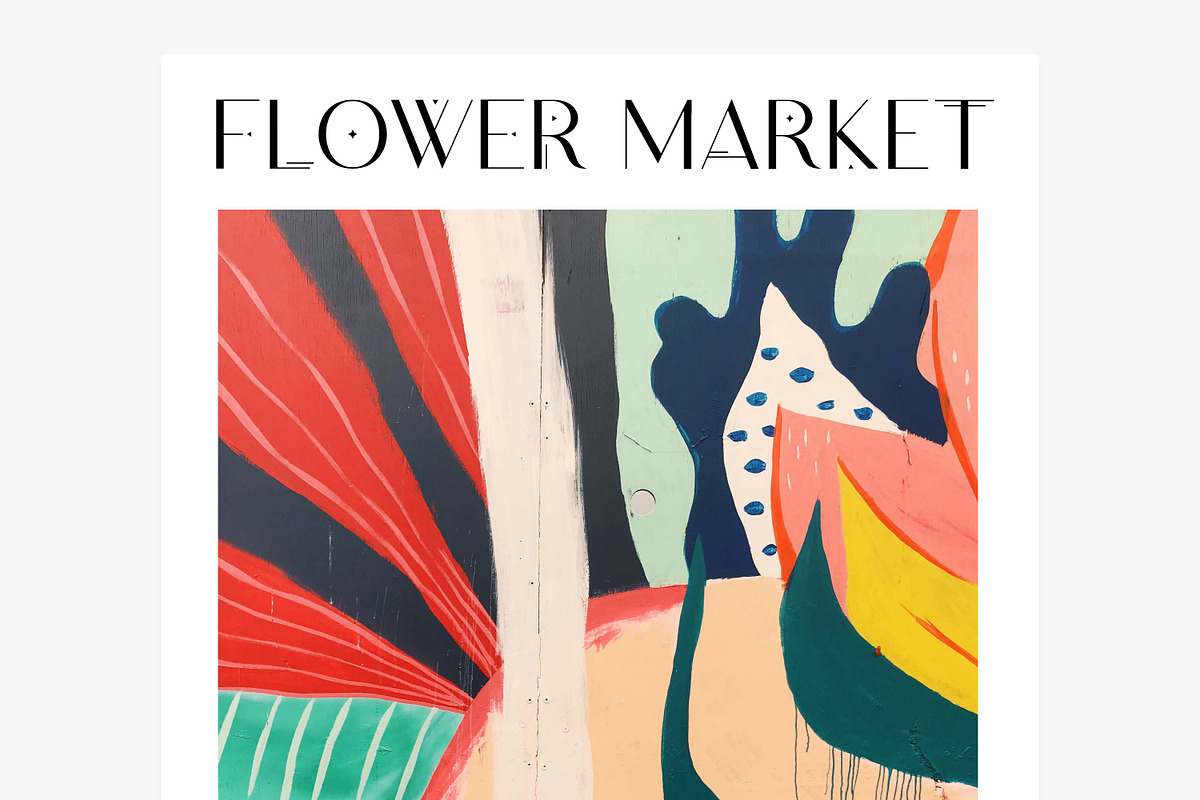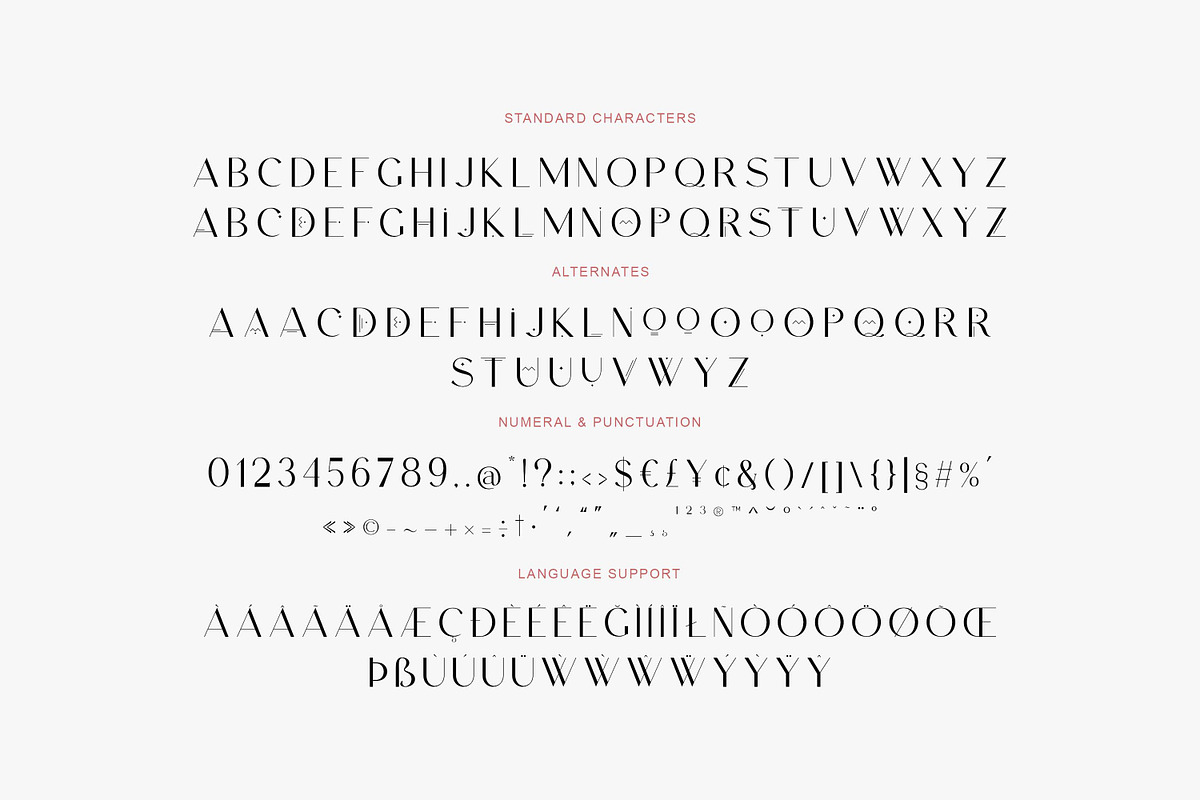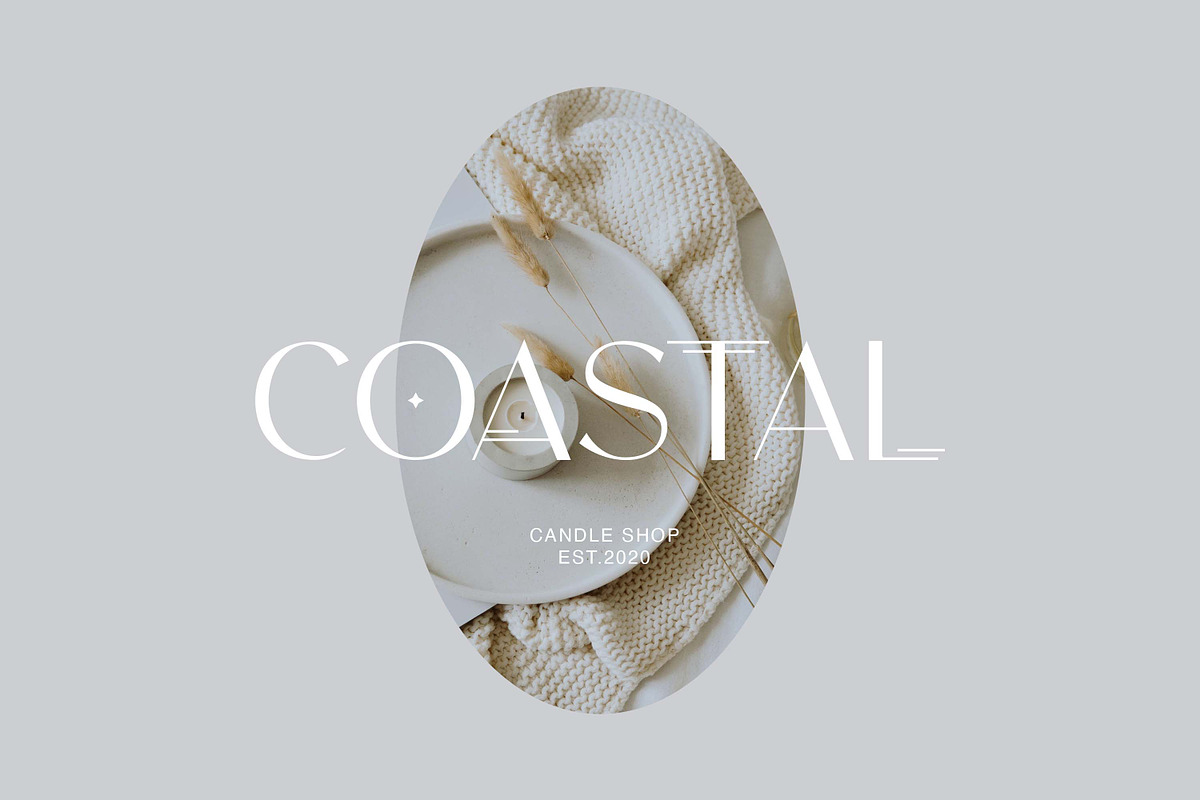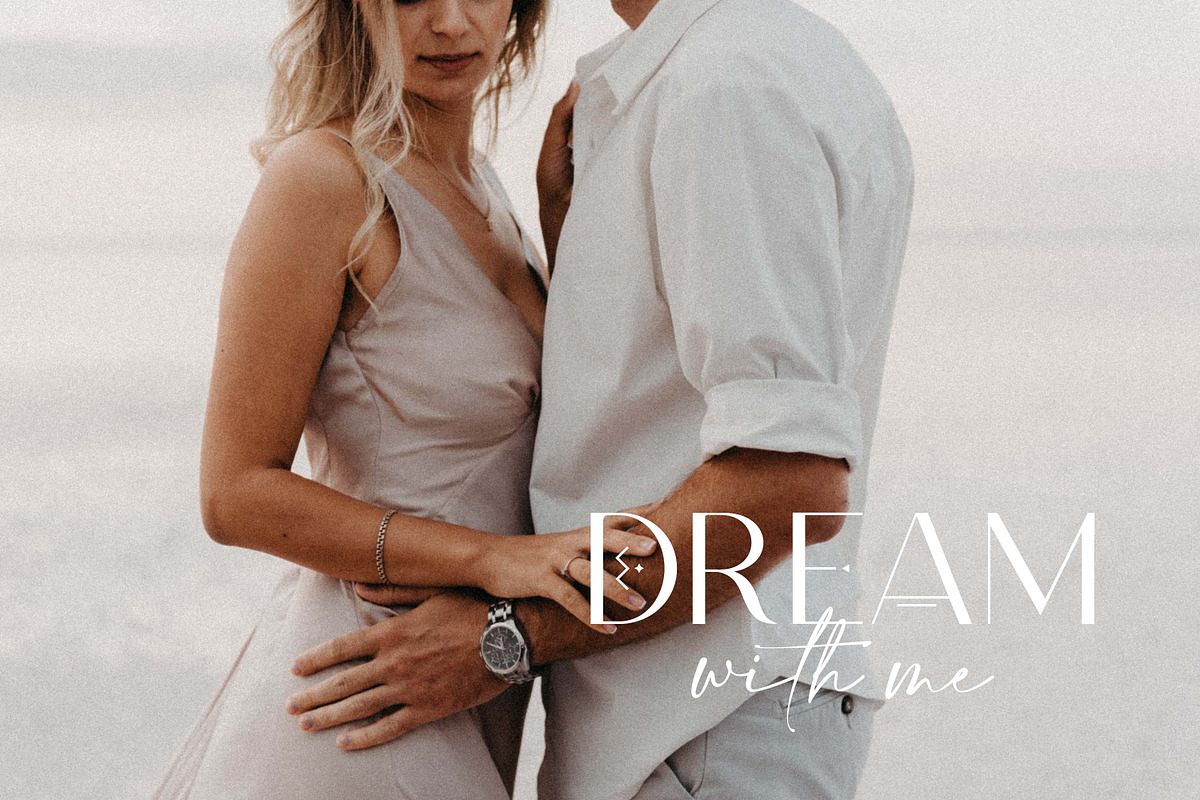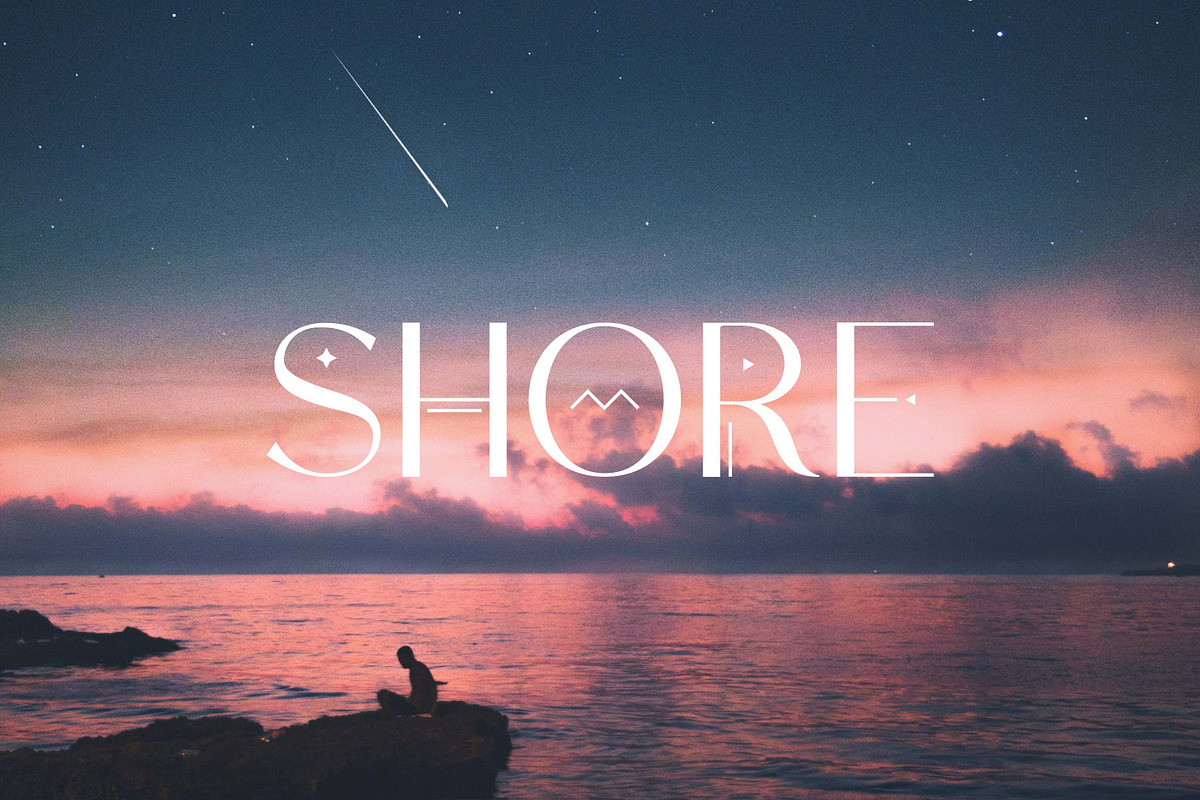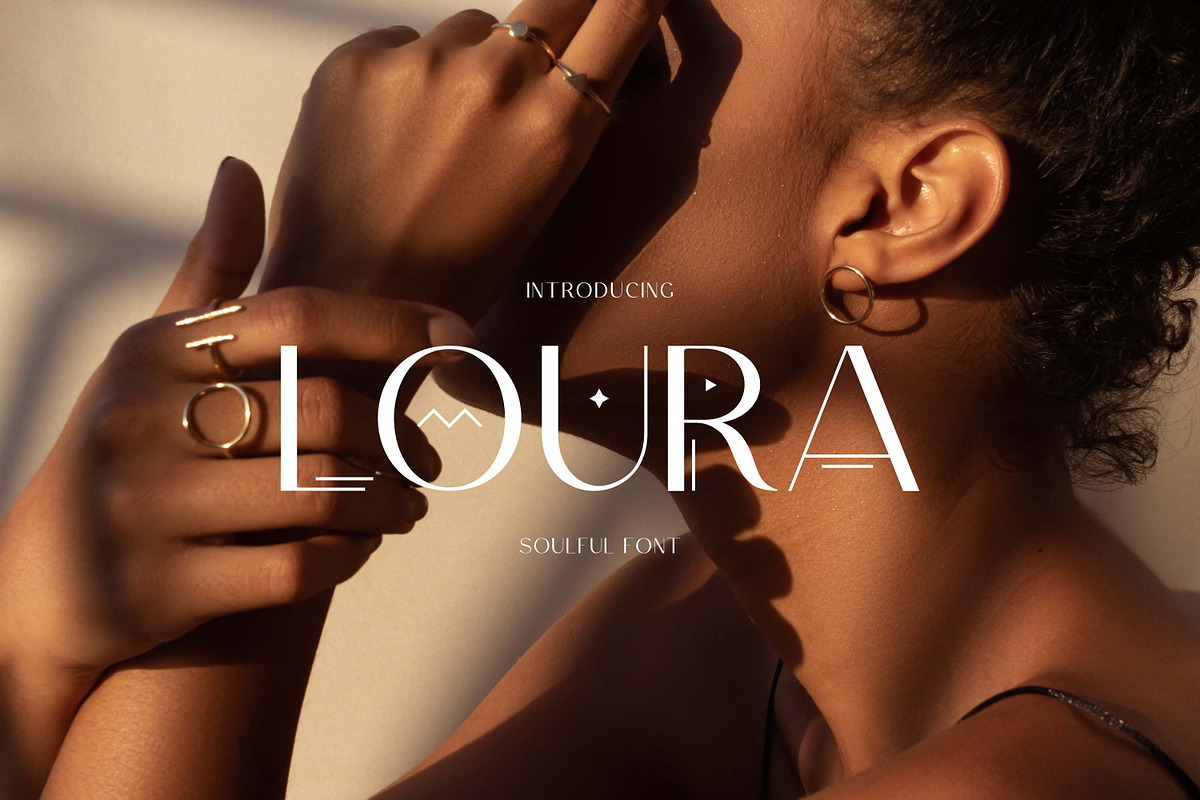
Loura Sans Serif
Loura is a sans serif font with geometric details.
- Uppercase, numbers, punctuations, alternates;
- Multilingual support.
UPPERCASE letters - simple font, lowercase letters - symbol font.